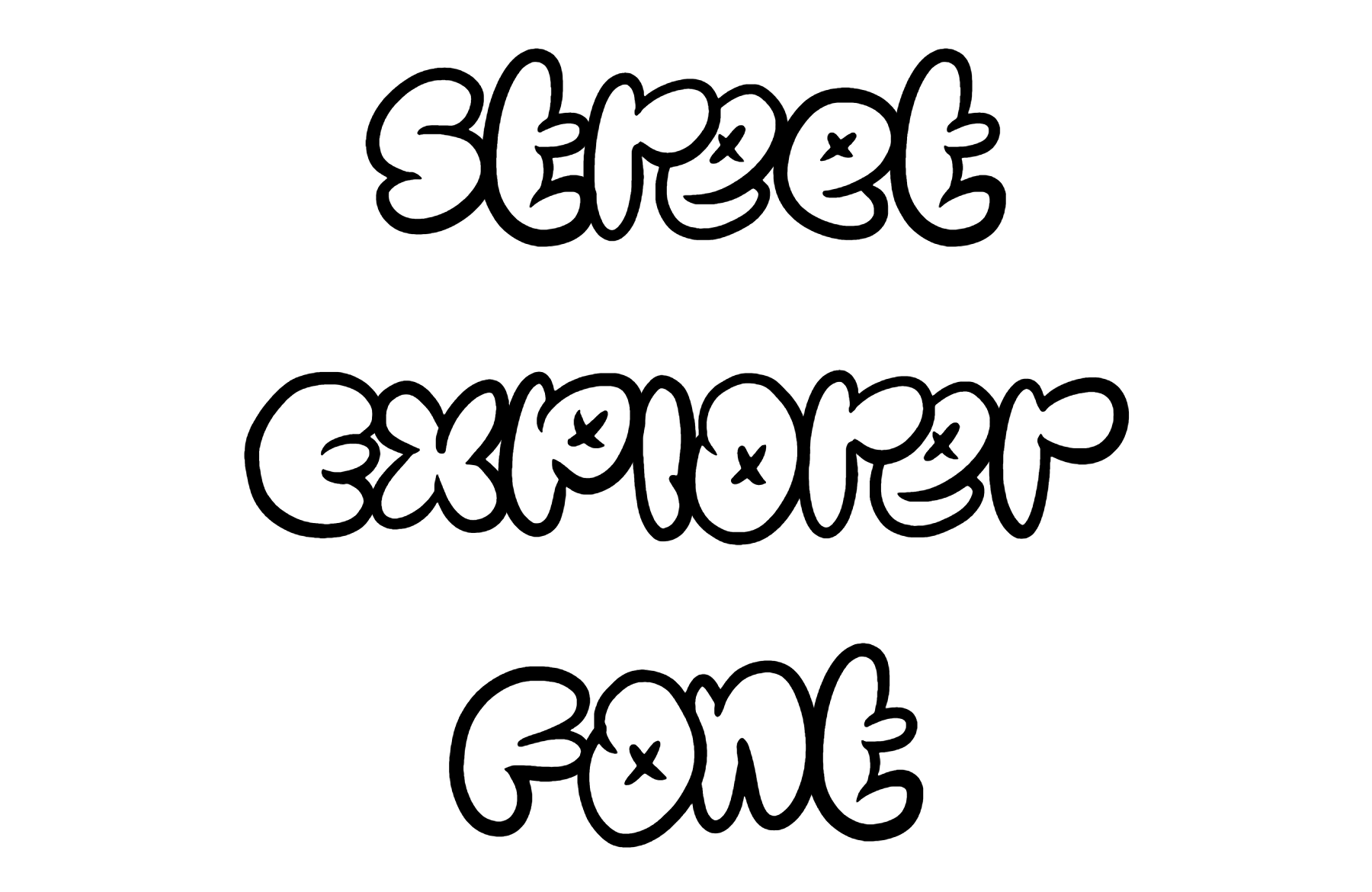
Street Explorer
Street Explorer is a cartoon font created by Putra Novembria Candra Kusuma and released through Putracetol Studio, Karanganyar (2020). It has a cheerful, hand-drawn look that makes people smile before they even read the words. You can download it for free and test it with your own words in the preview above.
- Designer: Putra Novembria Candra Kusuma
- Publisher: Putracetol Studio, Karanganyar
- Extra characters: 52 copy-and-paste alternates (Private Use Area)
What You Can Type With Street Explorer
You get every letter from A to Z in both cases and all the numbers from 0 to 9, which means Street Explorer can handle full sentences, dates and prices. Common punctuation such as &, !, ? and @ is included as well. It also has the accented letters you need for Spanish, French, Portuguese and Italian.
Where Street Explorer Works Best
Designers usually reach for fonts like Street Explorer when they're making kids' books, birthday invites and fun YouTube thumbnails. Its lowercase letters are tall compared to the capitals, which keeps it readable at smaller sizes. Cartoon fonts are great for short, fun lines. If you place it over a busy photo, add a thick outline or a drop shadow so it stays readable.
Who designed Street Explorer font?
Does Street Explorer support accented letters?
Yes. Street Explorer includes the accented letters needed for Spanish, French, Portuguese and Italian, so it works for more than just English.